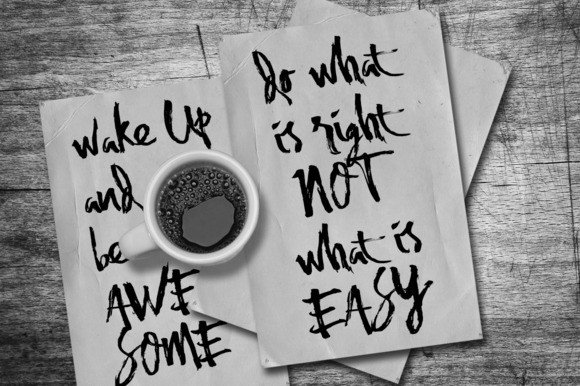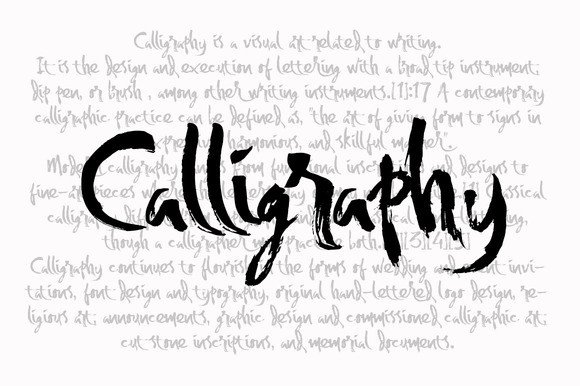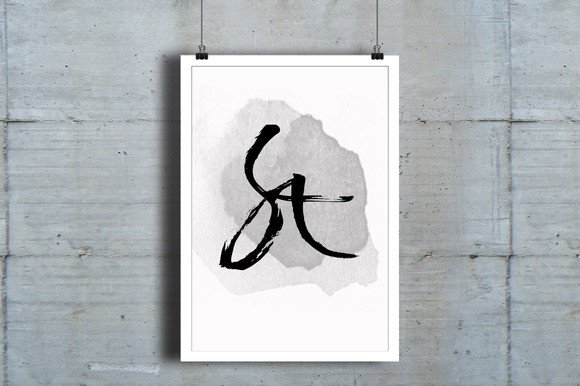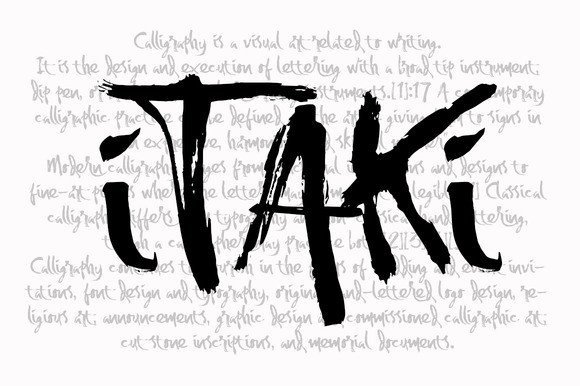
Introduction to Itaki Font
Itaki is a brush stroke font, perfect for giving your designs a remarkably textured feel.
This font has an authentic feel, giving your designs an unparalleled unique look .
Key Features of Itaki Font
Why Choose Itaki Font?
Itaki Font offers exceptional quality and versatility, making it a valuable addition to your design toolkit. Whether you’re creating for personal projects or commercial use, Itaki Font delivers professional results.